Snapchat Font: Exploring the Typography Behind the Popular App
Snapchat Font
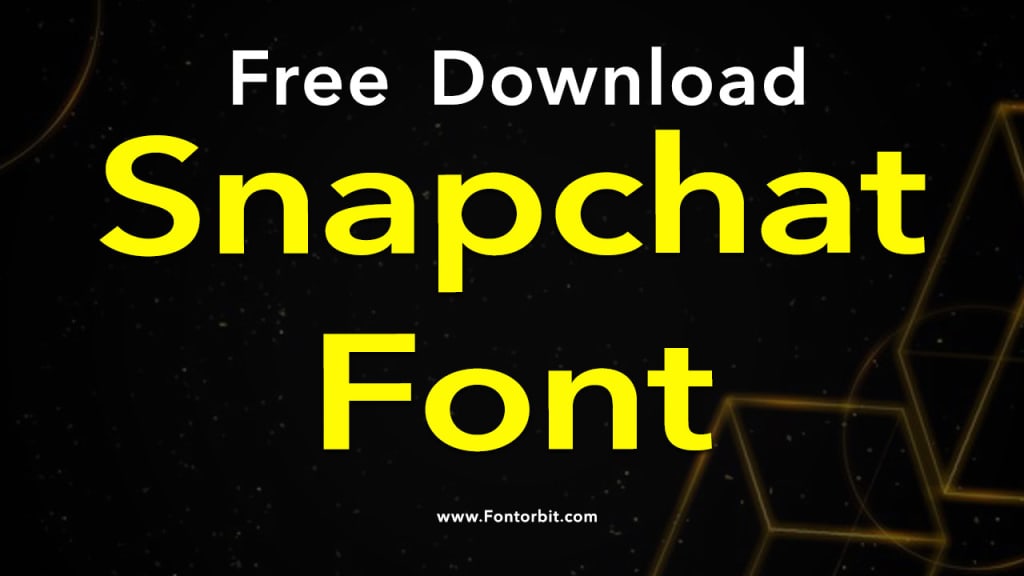
Snapchat, one of the most widely used social media platforms, is known for its engaging features like disappearing messages, filters, and Snap Map.
However, a lesser-discussed aspect of Snapchat is its typography, which plays a significant role in enhancing user experience and branding. This article delves into the details of the Snapchat font, its features, and how it contributes to the app's identity.
The History of Snapchat's Font
Snapchat's original font, "Avenir," was chosen for its clean and modern appearance. Avenir is a sans-serif typeface designed by Adrian Frutiger in 1988. Its geometric design and contemporary feel complemented Snapchat's youthful and vibrant brand image.
In 2016, Snapchat rebranded and introduced a new custom font called "Snapchat Sans." This bespoke font was developed to create a unique identity for the platform. Snapchat Sans retained the modernity of Avenir while incorporating subtle tweaks to make it more playful and distinctive, aligning perfectly with Snapchat's target audience of younger users.
Features of Snapchat Fonts
Clarity and Readability: Both Avenir and Snapchat Sans prioritize readability, ensuring that messages are easy to read even on small screens.
Playful Design: Snapchat Sans has rounded edges and playful proportions, reflecting the app’s fun and casual vibe.
Customization: Snapchat allows users to personalize their snaps with text, offering various font styles like Bold, Italic, and Glow, enabling creative expression.
Fonts in Snapchat’s Stories and Chats
Snapchat’s typography is not limited to its branding. Users interact with text elements daily, whether through Stories, captions, or chats. The font’s simplicity ensures that it does not overshadow the content but enhances the overall user experience. Snapchat’s decision to allow multiple font options for captions has added an extra layer of creativity for users.
Snapchat Font’s Role in Branding
Typography is a vital component of Snapchat’s branding. The app’s custom font helps establish a consistent visual identity across its interface, marketing materials, and advertisements. This consistency builds brand recognition and sets Snapchat apart from competitors.
Conclusion
Snapchat’s fonts are more than just text styles; they’re a key element of the platform’s identity. From the sleek and modern Avenir to the playful Snapchat Sans, the typography reflects the app’s innovative and youthful spirit.
By offering users creative freedom through text customization, Snapchat ensures that typography remains a significant part of the user experience. Whether it’s in branding or usability, the Snapchat font continues to play a pivotal role in making the platform engaging and unique.
FAQs
1. What is the name of Snapchat’s custom font?
Snapchat’s custom font is called "Snapchat Sans."
3. What font did Snapchat use before Snapchat Sans?
Snapchat originally used the Avenir typeface.
4. Why did Snapchat create its own font?
Snapchat created its own font to establish a unique identity and align with its playful and youthful brand image.
5. Are there third-party apps for more font options on Snapchat?
6. Does Snapchat Sans improve readability?
Yes, Snapchat Sans is designed to enhance readability while maintaining a fun and modern look.
7. How does Snapchat’s font contribute to its branding?
Snapchat’s font helps create a consistent visual identity, making the platform recognizable and unique.